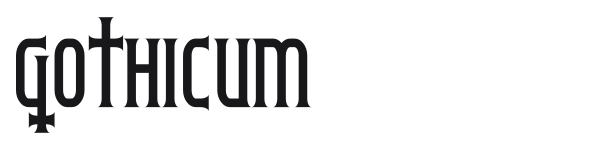
Angie Barefoot
Angie Barefoot is a bold, condensed gothic display face from Grey Wolf Web Works with angular letterforms that carry a dark, medieval weight. The tight proportions and sharp strokes give it an imposing quality, like lettering chiseled into the facade of a cathedral. Best kept to headlines, posters, and title work where its heavy blackletter energy can dominate without competing for space.